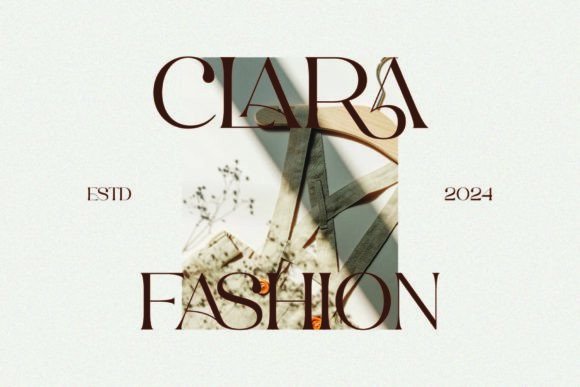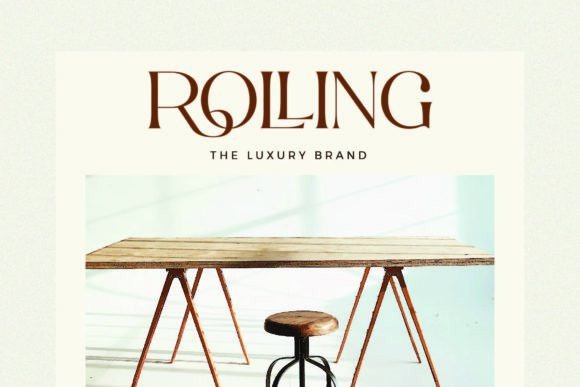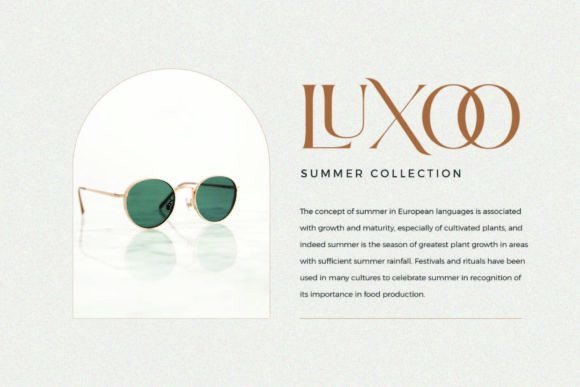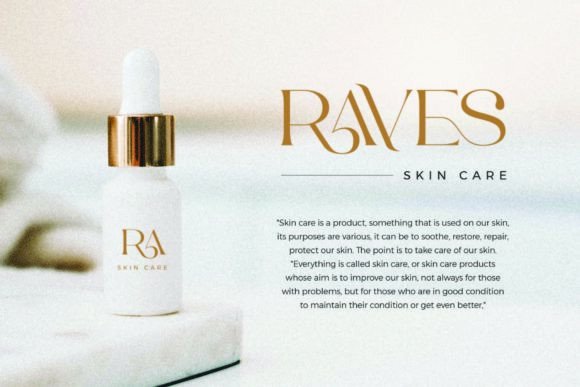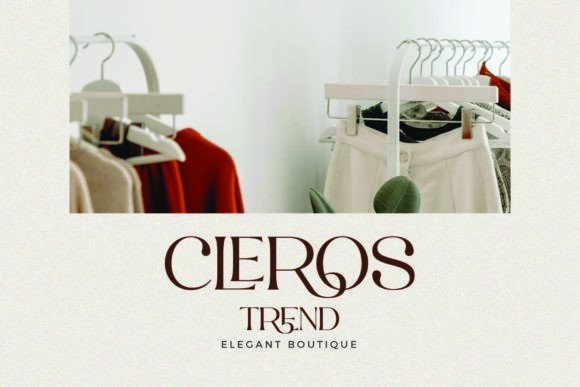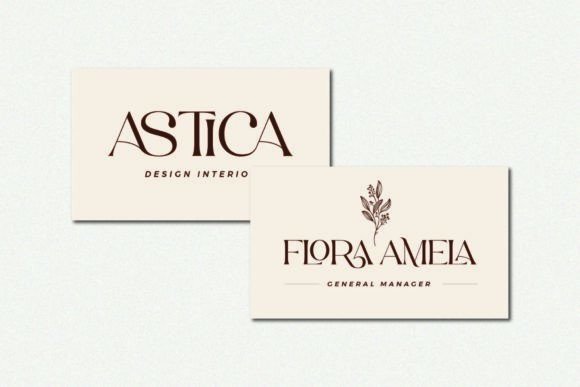
Introducing Askha Font: The Epitome of Luxury and Sophistication
In the world of typography, fonts play a crucial role in conveying the tone and personality of a brand or design. For those seeking to create high-end branding and editorial projects, a font that exudes luxury, sophistication, and timeless elegance is essential. This is where Askha Font comes in – a regal serif font that embodies the essence of refined luxury.
The Design of Askha Font
Askha Font is a masterfully crafted serif font that boasts regal serifs and graceful curves, making it the perfect choice for designers and crafters seeking to elevate their designs. Its luxurious feel is palpable, with each letter meticulously designed to convey a sense of opulence and sophistication. The font’s classic design ensures that it remains timeless, never going out of style or trend.
Key Features of Askha Font
• Regal Serifs: Askha Font’s serifs are designed to evoke a sense of luxury and refinement, making it perfect for high-end branding projects.
• Graceful Curves: The font’s curves are smooth and elegant, adding to its sophisticated and opulent feel.
• Timeless Elegance: Askha Font’s classic design ensures that it remains relevant and stylish, even as design trends evolve.
Perfect for High-End Branding and Editorial Projects
Askha Font is specifically designed for use in high-end branding and editorial projects, where a sense of luxury and sophistication is paramount. Its refined feel makes it perfect for:
• Luxury Brands: Elevate your brand’s visual identity with Askha Font’s opulent and sophisticated feel.
• Editorial Projects: Add a touch of elegance to your editorial projects, such as magazines, newspapers, and books.
• Packaging Design: Use Askha Font to create luxurious packaging designs that reflect your brand’s high-end personality.
Benefits of Using Askha Font
By incorporating Askha Font into your designs, you can:
• Elevate Your Brand: Convey a sense of luxury and sophistication, setting your brand apart from the competition.
• Enhance Readability: Askha Font’s clear and elegant design ensures that your text is easy to read, even in smaller sizes.
• Increase Engagement: The font’s luxurious feel is sure to captivate your audience, drawing them in and holding their attention.
Tips for Using Askha Font
To get the most out of Askha Font, consider the following tips:
• Use it Sparingly: Askha Font’s luxurious feel can be overwhelming if overused. Use it sparingly to create a sense of drama and emphasis.
• Pair it with Simplicity: Pair Askha Font with simpler fonts to create a sense of contrast and visual interest.
• Experiment with Colors: Askha Font looks stunning in a range of colors, from metallics to rich jewel tones. Experiment to find the perfect combination for your design.
Askha Font is a luxurious serif font that embodies the essence of sophistication and opulence. Its regal serifs and graceful curves make it perfect for high-end branding and editorial projects, where a sense of luxury and refinement is essential. By incorporating Askha Font into your designs, you can elevate your brand, enhance readability, and increase engagement. With its timeless elegance and versatility, Askha Font is sure to become a staple in your design arsenal.